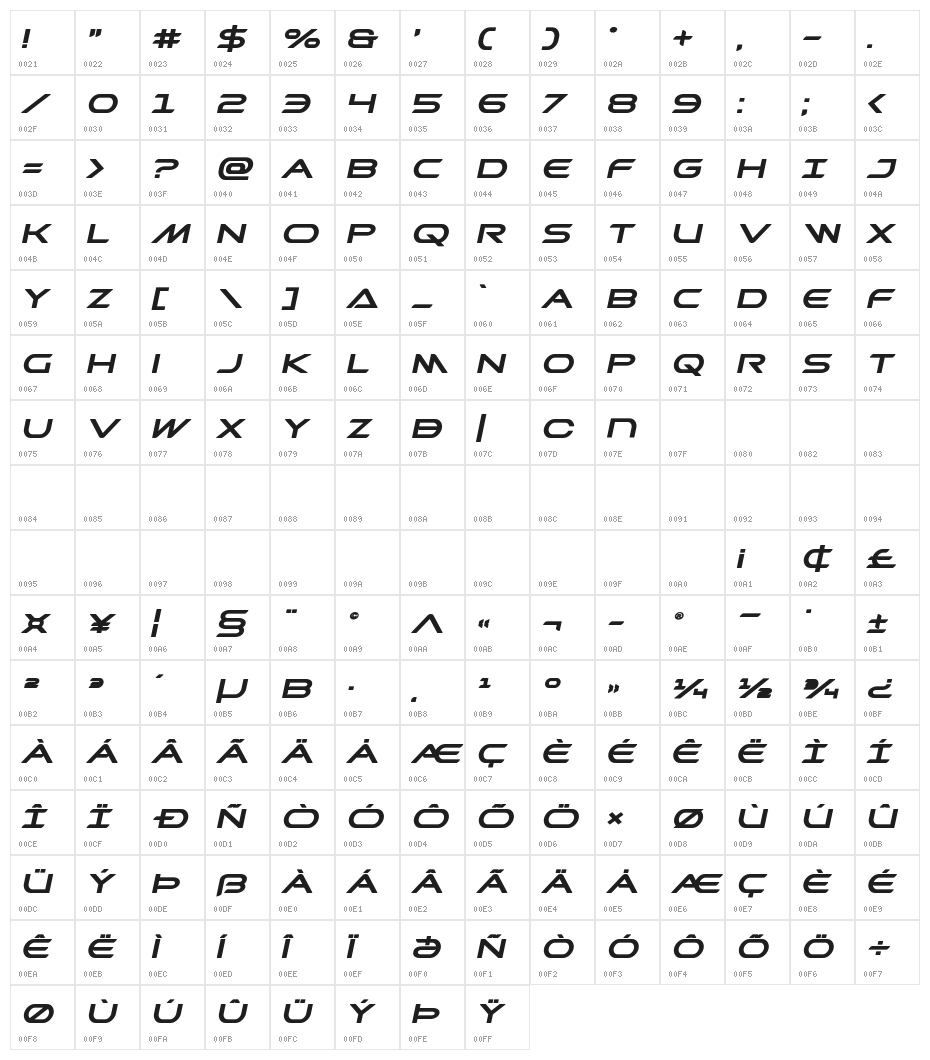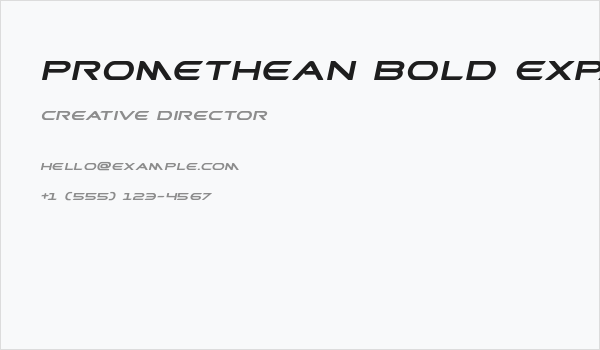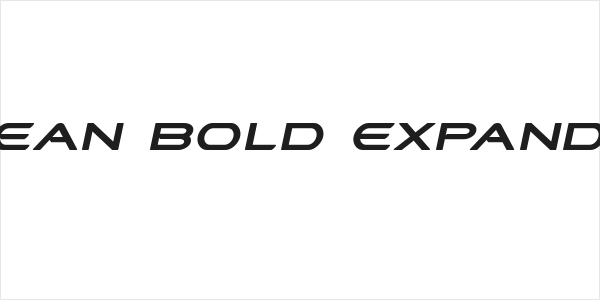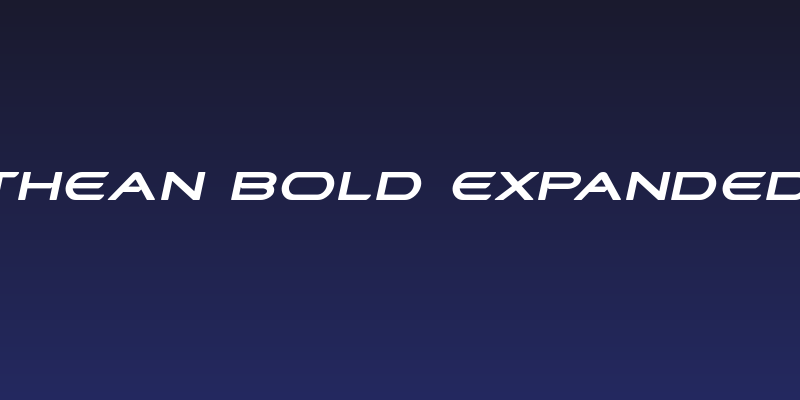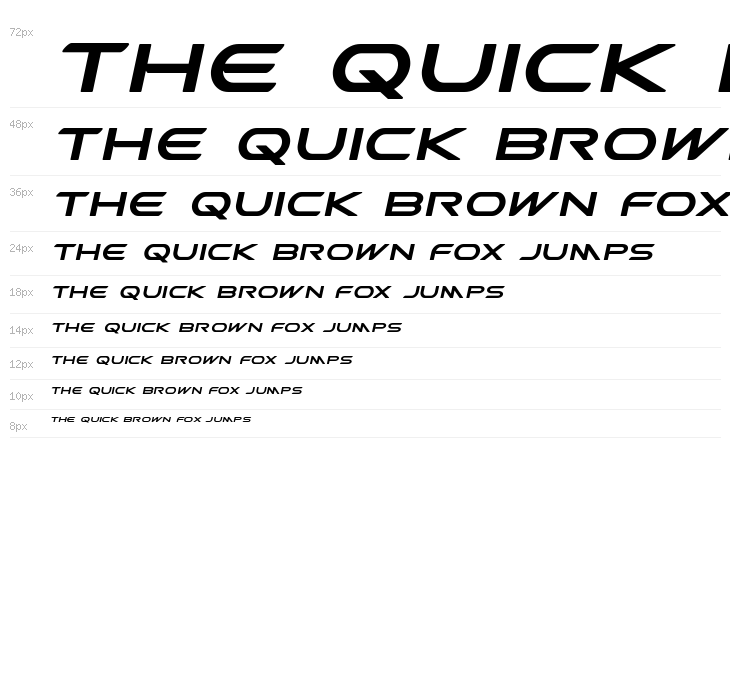
Promethean Bold Expanded Italic Font
Promethean Bold Expanded Italic Description
This font exhibits a bold and expanded style with a distinct italic slant, creating a dynamic and forward-moving appearance. The characters are well-defined with a modern aesthetic, featuring clean lines and a geometric structure. The expanded width of the letters enhances readability while maintaining a strong visual impact. The italic angle adds a sense of motion and energy, making it suitable for attention-grabbing headlines or titles. The numerals and special characters are consistent with the overall design, ensuring uniformity across different text elements.
| Proposed Projects | Ideal for use in branding, advertising, sports team logos, and dynamic web design projects. |